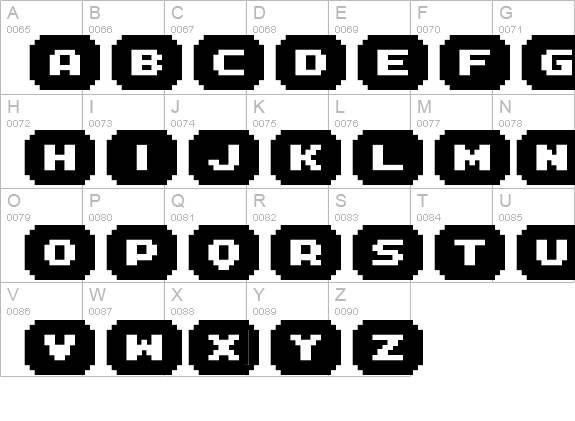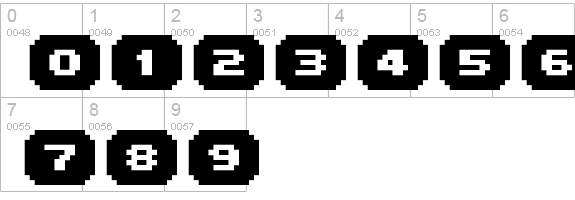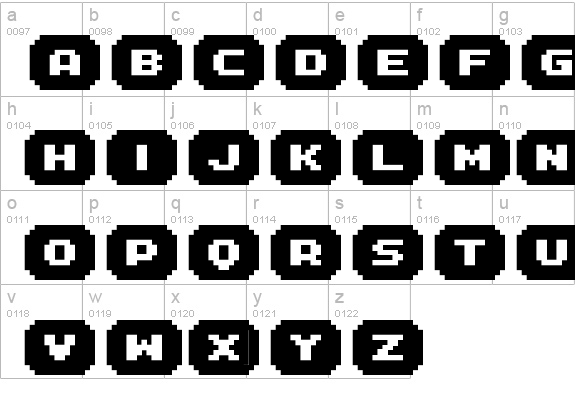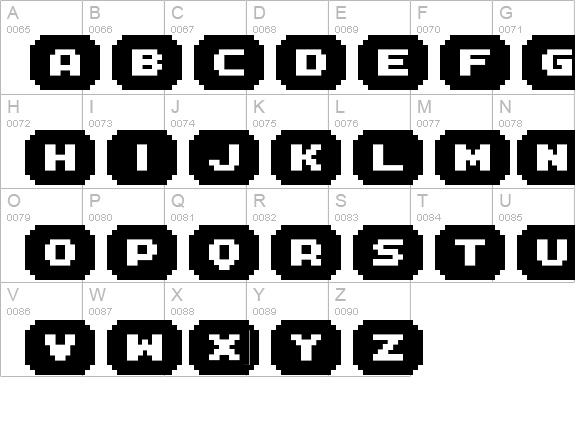
FFF Interface06b Font Details
The FFF Interface06b font is a versatile and modern typeface that exudes a sense of sophistication and style. Its clean lines and sharp edges make it perfect for a wide range of design projects, from branding to editorial layouts. The font's sleek and futuristic aesthetic adds a touch of contemporary flair to any design it is used in. One of the best things about the FFF Interface06b font is that it is available for free download at FontsMarket.com. This means that you can easily access this high-quality font without having to worry about any additional costs. Whether you are a designer working on a professional project or simply looking to add a stylish touch to your personal creations, the FFF Interface06b font is a fantastic choice that won't break the bank. Download it now and elevate your designs with this sleek and modern typeface.